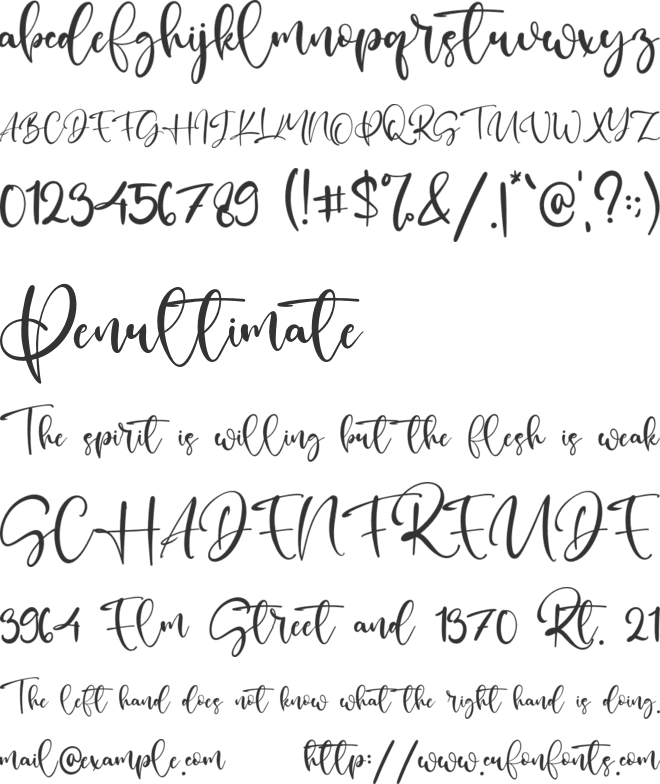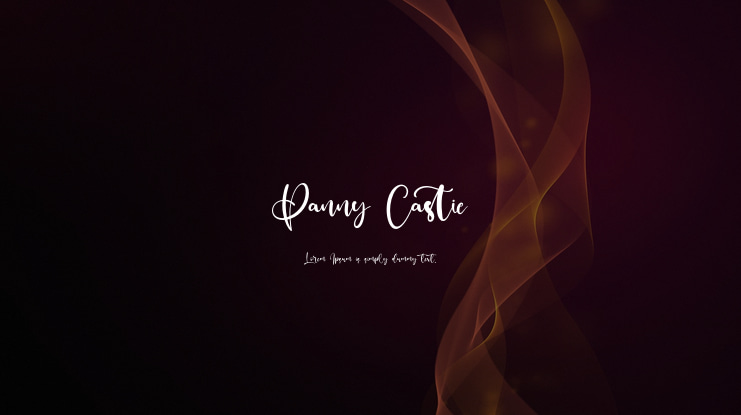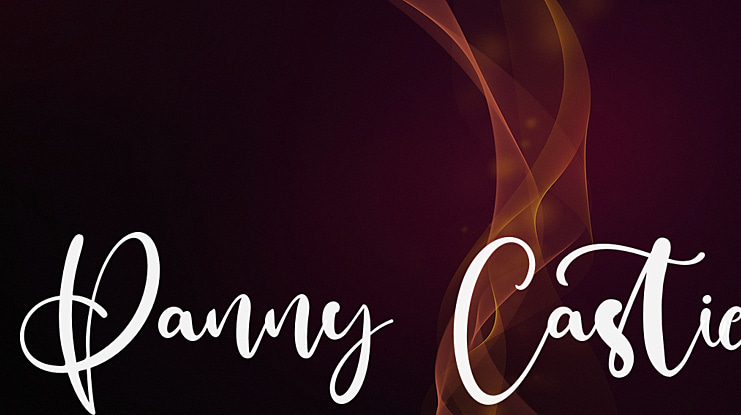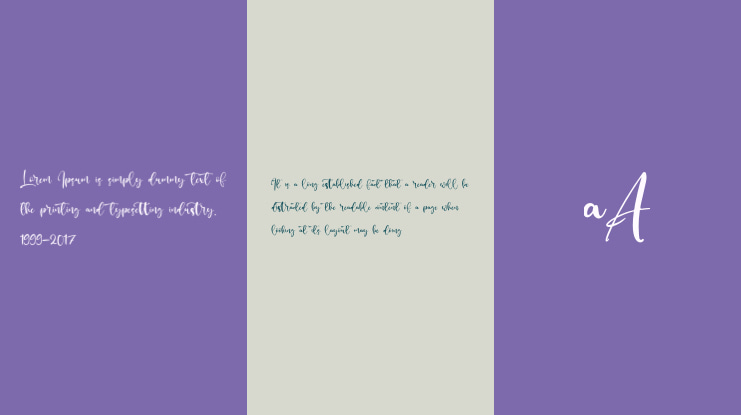
Panny Castie Font
Staircase Studio
Panny Castie A Luxury Script Font, A collection of letters and numbers suitable your projects also great for Logotype, Branding Design, Logo Design, Digital Lettering Arts, T-Shirt/Apparel, Poster, Magazine, Signs, Advertising Design, and any design needsClick our website :https://staircaselab.com/product/panny-castie/